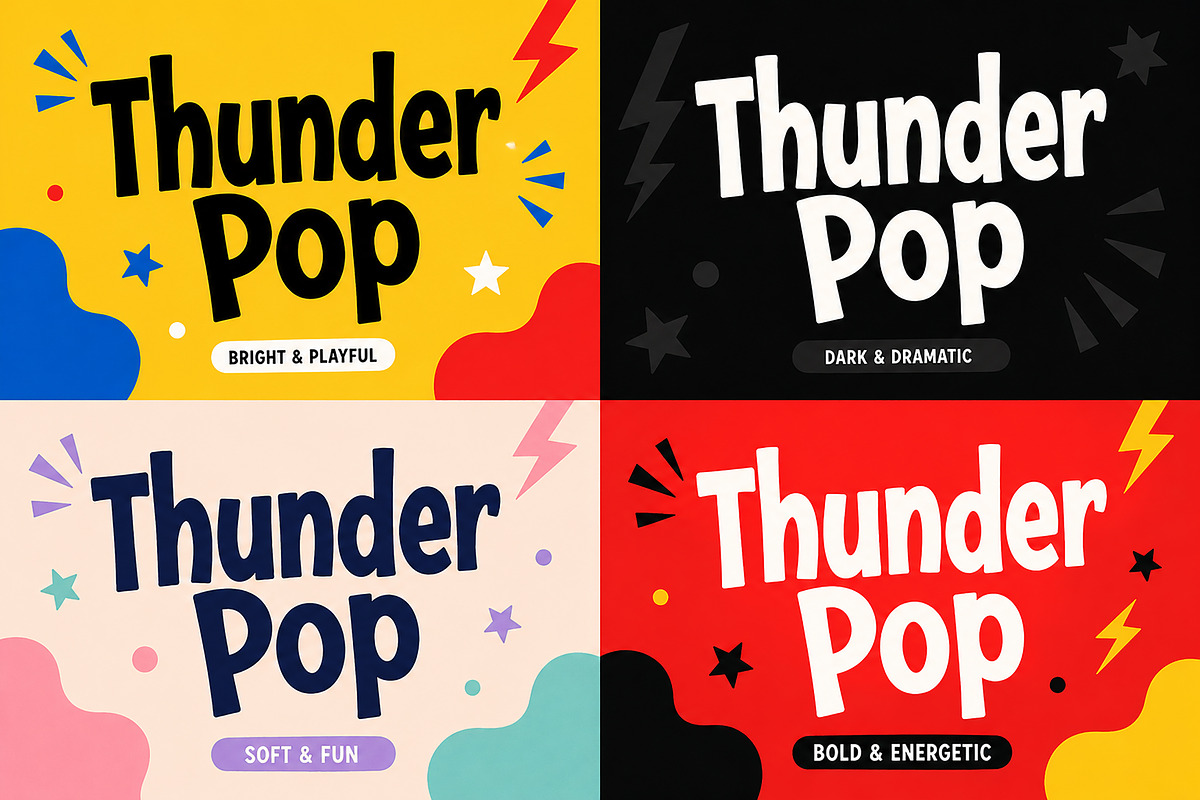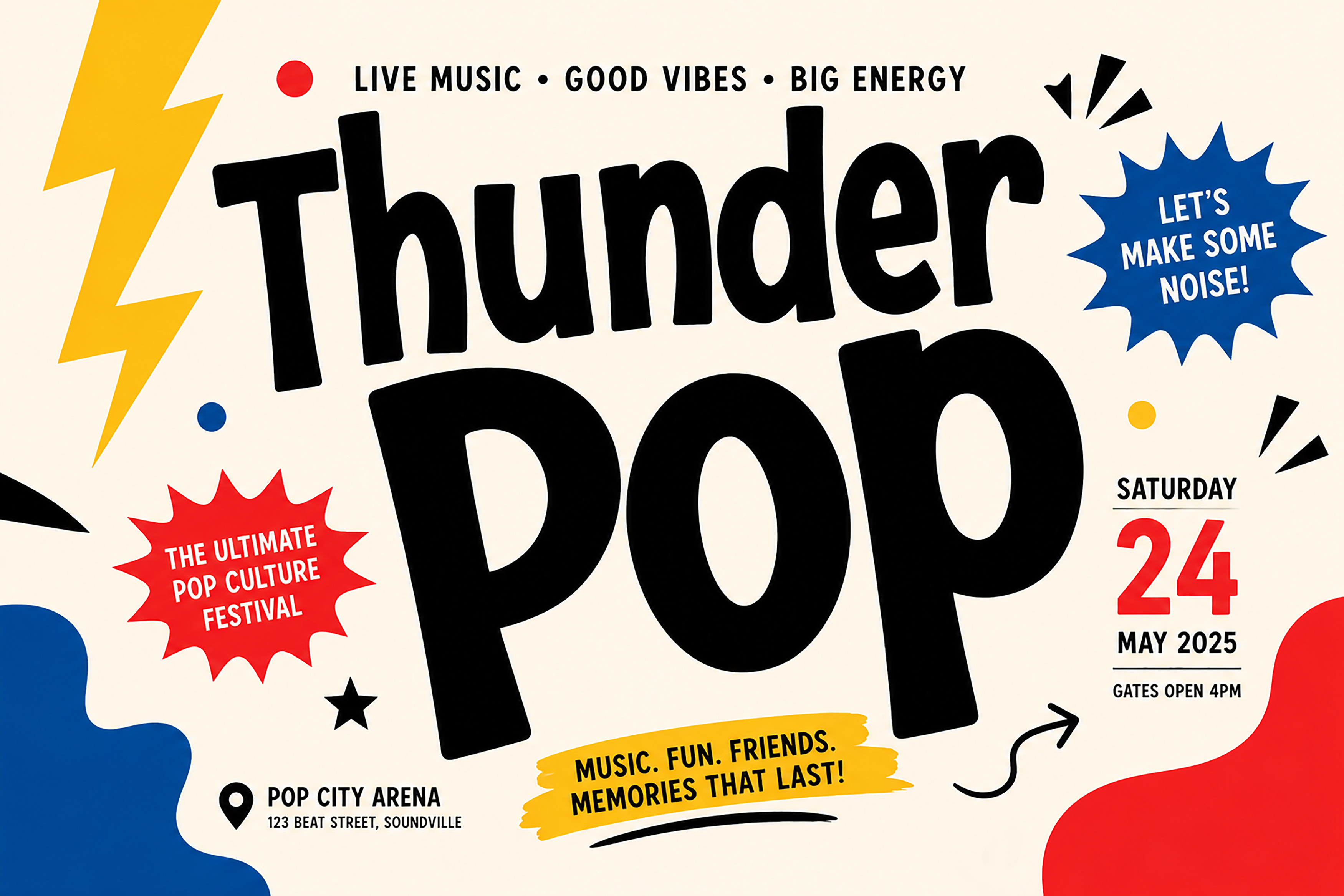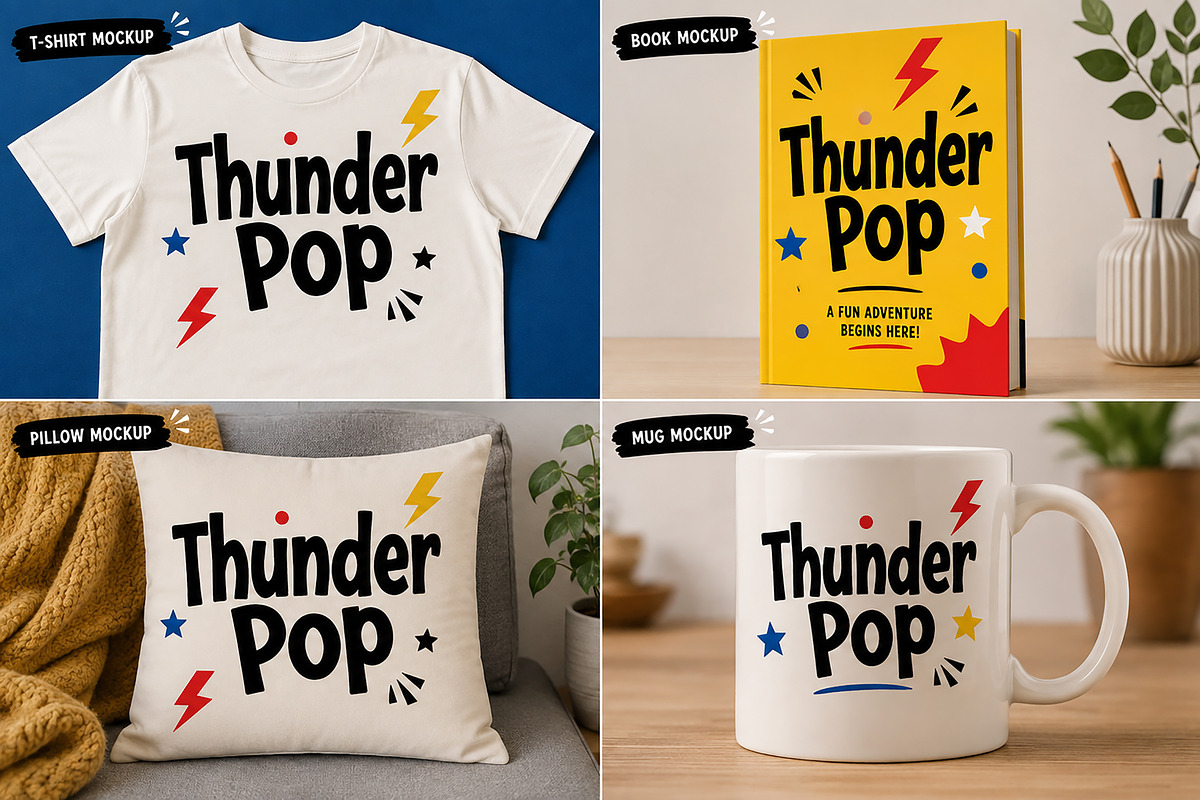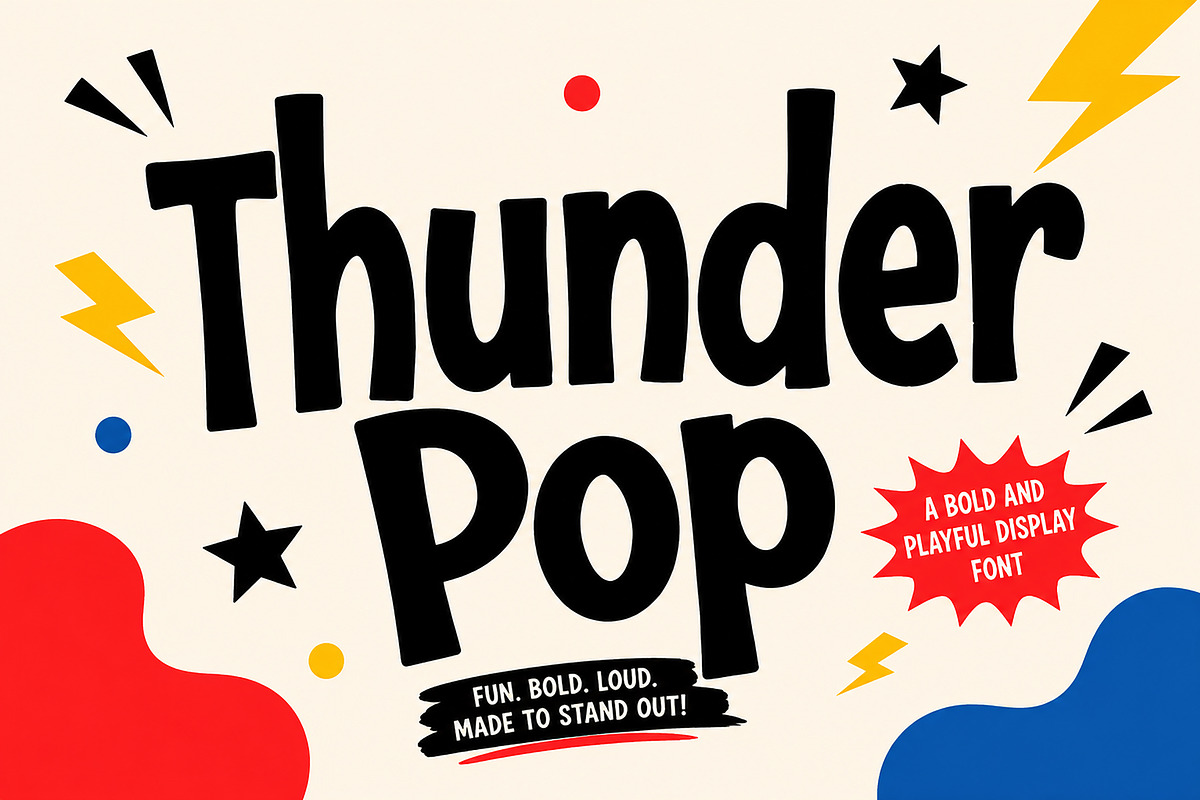
Thunder Pop – Bold Playful Font
Thunder Pop – Bold Playful Display Font
Thunder Pop is a bold, playful, and energetic display font designed to make your creative projects stand out.
With its chunky shapes, expressive letterforms, and fun personality, Thunder Pop is perfect for eye-catching headlines and bold visual designs. Its strong and playful style makes it a great choice for projects that need a fun, loud, and memorable typographic look.
Thunder Pop is ideal for:
Posters
Branding projects
Logo designs
T-shirts and apparel
Book covers
Mug designs
Pillow designs
Packaging
Event posters
Creative headlines
Promotional designs
Kids and playful projects
Give your designs a bold burst of personality with Thunder Pop!
Thunder Pop is a bold and playful display font with an energetic personality. Perfect for posters, branding, logos, apparel, social media, packaging, headlines, and other eye-catching creative projects.